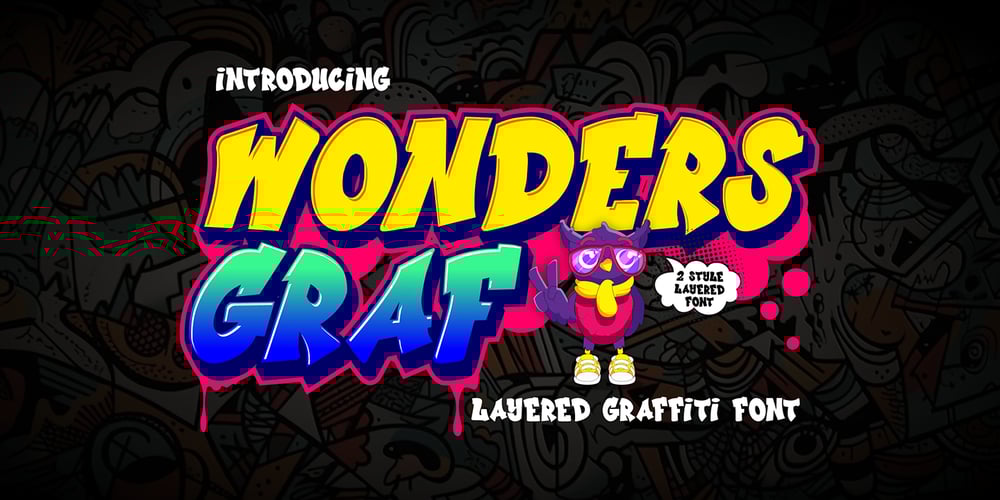
Wonders Graf 3d Graffiti Font Family was designed by Sipanji and published by Sipanji21. Wonders Graf 3d Graffiti contains 6 styles and family package options. “Wonder Graff” is a graffiti font that features 3 different layers and multiple font styles. With these layers and font style variations, you can create intriguing effects in your design. The use of layers and font styles allows you to achieve more complex and creative looks.Fonts like “Wonder Graff” are often used in street art, posters, or designs that want to emphasize bold and energetic typography. With different layer and style options, you have greater control over the appearance of your text and can customize it to fit your design concept.